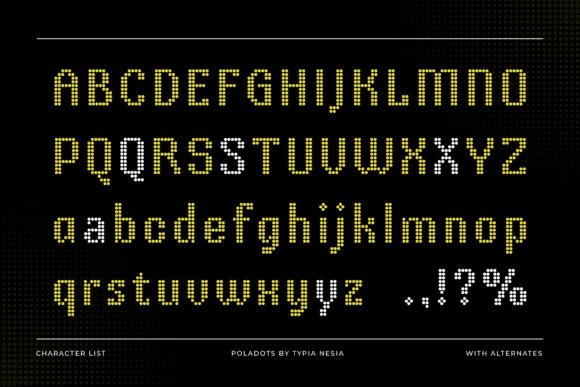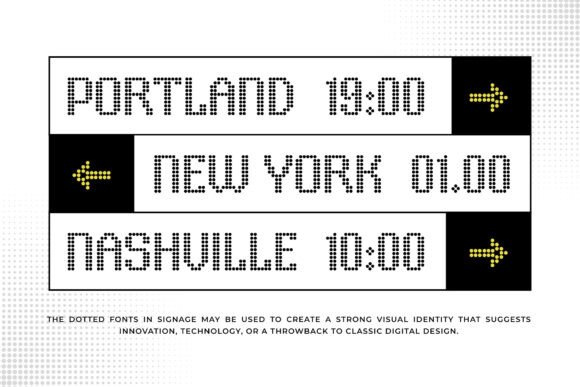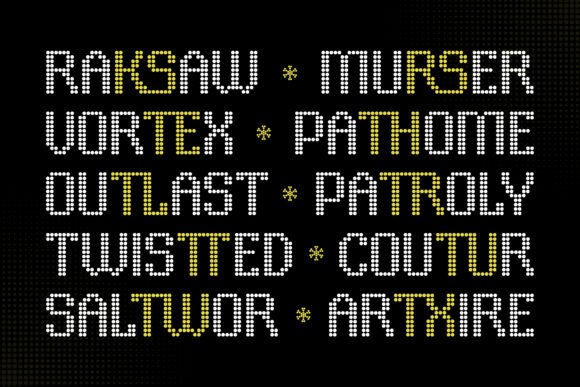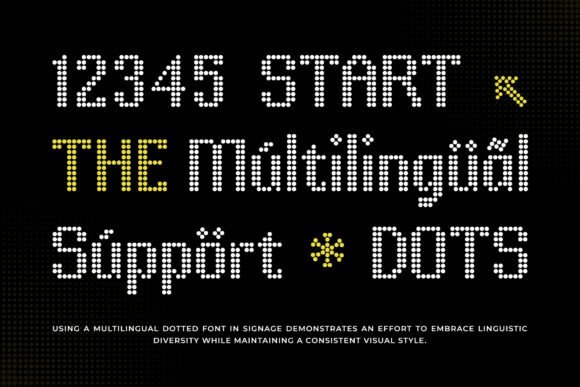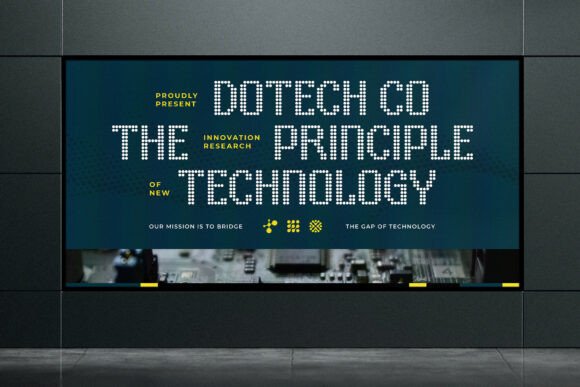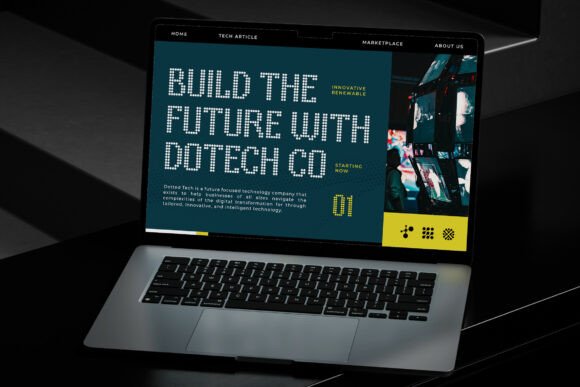
Introduction to Poladots Font
Have you ever stared at a pixelated screen, mesmerized by the simplicity and elegance of old-school graphics? The nostalgic charm of retro video games and classic computer interfaces can transport us back in time, evoking a sense of wonder and curiosity. This is precisely the creative spark that inspired the creation of Poladots Font, a modern, high-quality display font that skillfully blends the past and present.
Poladots Font is an innovative design resource that has been carefully crafted to deliver a unique visual impact. Its distinctive pixelated aesthetic, formed from clean, uniform dots, creates a sophisticated dot matrix or halftone effect that is both retro and futuristic at the same time. Whether you’re working on a creative project, designing a logo, or crafting an eye-catching headline, Poladots Font is an invaluable tool that can elevate your visuals to new heights.
Key Features of Poladots Font
- High-quality design resource ideal for creative projects, offering a unique and playful aesthetic.
- Designed to be highly legible, even at high resolutions, making it suitable for both print and digital applications.
- Includes a range of characters, including uppercase and lowercase letters, numbers, and punctuation marks, for comprehensive use in creative projects.
Honest Review: Poladots Font
I recently stumbled upon the Poladots Font, and I’m excited to share my thoughts with you. As a designer, I’m always on the lookout for high-quality design resources that can elevate my creative projects.
Here are some things that I think work well:
- Poladots Font offers a unique and playful style that’s perfect for adding a touch of whimsy to your designs.
- ⚠️ The font may not be suitable for formal or professional projects due to its playful nature.
- ⚠️ Some users may find the font to be a bit too quirky or over-the-top for their taste.
Overall, I think the Poladots Font is a fantastic addition to any designer’s toolkit. It’s perfect for projects where you want to add a bit of personality and fun. While it may not be suitable for every project, I highly recommend giving it a try. With its high-quality design and free download option, it’s a resource that’s hard to beat.
Tips for Getting the Most Out of Poladots Font
To get the most out of Poladots Font, use it in combination with other design elements to create a visually appealing design. Experiment with different font sizes, colors, and arrangements to find the perfect look for your project.
Poladots Font is ideal for use in a variety of creative projects, including logos, branding materials, and social media graphics. It’s also a great choice for designers looking for a unique and eye-catching font for their designs.